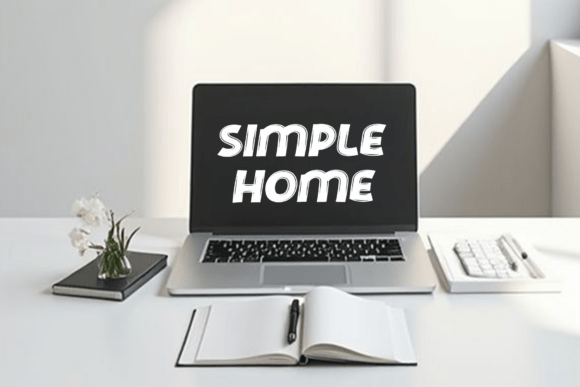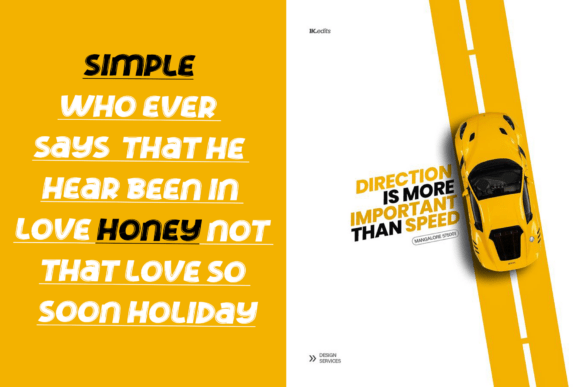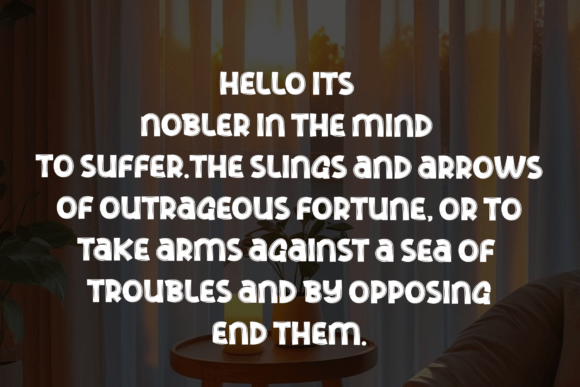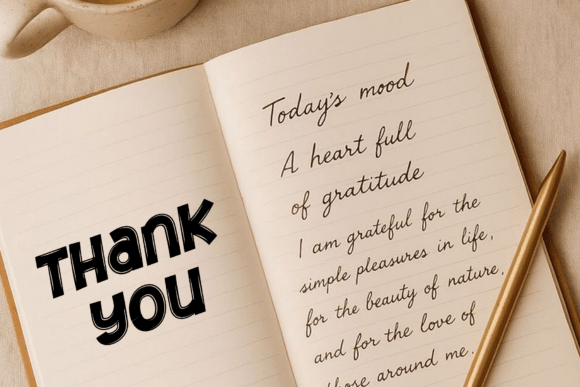
Introduction to Landscape Tripod Font Font
Fonts play a crucial role in design, and the Landscape Tripod Font font is a typeface that brings both character and versatility to any project. Whether you’re working on a branding project, a website, or a print design, the Landscape Tripod Font font offers a unique style that can elevate your work.
| π Font Name | Landscape Tripod Font |
| π€ Author | Sansana |
Landscape Tripod is a bold and friendly display font that balances solid, blocky structures with a playful, hand-drawn character.
The typeface features thick letterforms with a unique βcut-outβ or βinlineβ decorative detail, where thin white lines run through the center of the strokes to create a sense of depth and texture With its rounded terminals and slightly irregular counters, it exudes a warm, casual energy.
Key Features of Landscape Tripod Font Font
Why Choose Landscape Tripod Font Font?
The Landscape Tripod Font font is more than just a typeface β it’s a design tool that helps you communicate your message with style and clarity. Its unique character set and versatile design make it suitable for a wide range of applications, from elegant invitations to bold headlines.
With its carefully crafted letterforms and balanced proportions, the Landscape Tripod Font font ensures readability and visual appeal across all mediums.
What makes Landscape Tripod Font font special?
The Landscape Tripod Font font stands out with its unique design, exceptional readability, and versatility across various design applications.